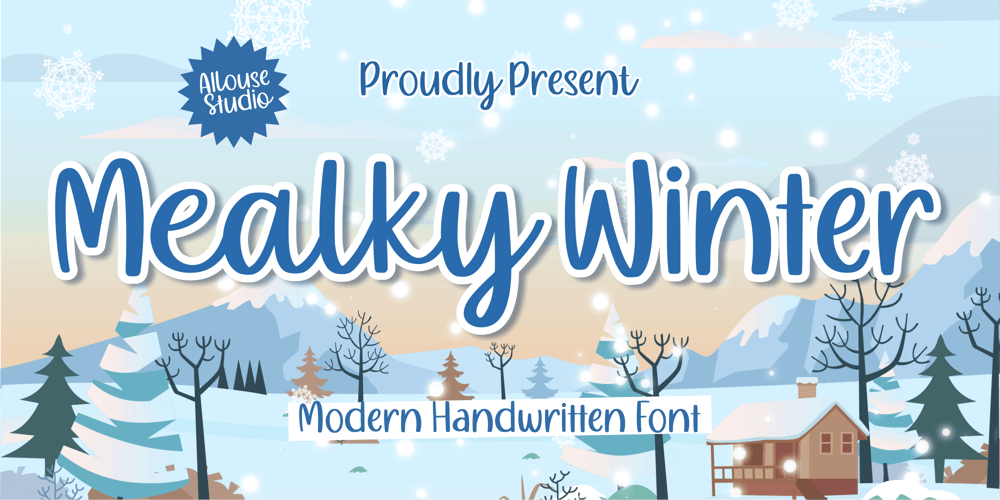
Mealky Winter Font Family was designed by Fachrizal Yusuf and published by Allouse Studio. Mealky Winter contains 1 styles and family package options. Proudly Presenting, Mealky Winter a Modern Handwritten FontMealky Winter is perfect for any tittles, logo, product packaging, branding project, megazine, social media, wedding, or just used to express words above the background.Mealky Winter also come with Multi-Lingual Support.Enjoy the font, feel free to comment or feedback, send me PM or email. Thank You!